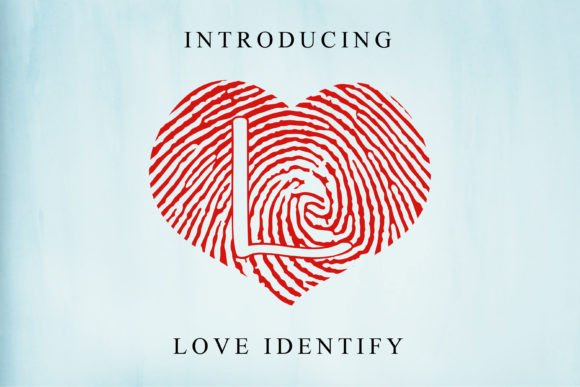
Love Identify Font: The Perfect Monogram Valentine’s Font
Are you looking for a unique and beautiful font to make your Valentine’s Day designs stand out? Look no further than Love Identify Font! This stunning monogram Valentine’s font is perfect for creating romantic and eye-catching designs for Valentine’s Cards, t-shirts, invitations, book covers, posters, and more.
What is Love Identify Font?
Love Identify Font is a carefully crafted monogram font that exudes love and elegance. Its unique and beautiful design makes it perfect for creating Valentine’s Day designs that will capture the hearts of your audience. The font features intricate details and a romantic feel that will add a touch of sophistication to any design.
Uses of Love Identify Font
Love Identify Font is a versatile font that can be used for a variety of design projects, including:
- Valentine’s Cards: Create romantic and personalized Valentine’s cards with Love Identify Font.
- T-shirts: Design eye-catching t-shirts with Love Identify Font that will make a statement.
- Invitations: Use Love Identify Font to create beautiful and elegant invitations for weddings, parties, and other events.
- Book Covers: Add a touch of romance to your book covers with Love Identify Font.
- Posters: Create stunning posters with Love Identify Font that will grab attention.
Features of Love Identify Font
Love Identify Font comes with a range of features that make it a must-have for designers, including:
- Unique and Beautiful Design: Love Identify Font features a unique and beautiful design that will make your designs stand out.
- Monogram Style: The font features a monogram style that adds a touch of elegance to any design.
- Romantic Feel: Love Identify Font has a romantic feel that makes it perfect for Valentine’s Day designs.
- Elegant and Sophisticated: The font has an elegant and sophisticated look that will add a touch of class to any design.
Benefits of Using Love Identify Font
Using Love Identify Font for your design projects comes with a range of benefits, including:
- Increased Engagement: Love Identify Font is designed to capture attention and increase engagement.
- Professional Look: The font gives your designs a professional look that will make you stand out.
- Easy to Read: Love Identify Font is easy to read, making it perfect for designs that require a clear and concise message.
- Customizable: The font is customizable, allowing you to adjust the size, color, and style to suit your design needs.
Tips for Using Love Identify Font
Here are some tips for using Love Identify Font effectively:
- Use it for Headings: Love Identify Font is perfect for headings and titles.
- Pair it with Other Fonts: Pair Love Identify Font with other fonts to create a unique and interesting design.
- Adjust the Size: Adjust the size of the font to create visual interest and hierarchy.
- Experiment with Colors: Experiment with different colors to find the perfect match for your design.
Love Identify Font is a unique and beautiful monogram Valentine’s font that is perfect for creating romantic and eye-catching designs. With its elegant and sophisticated look, it’s ideal for Valentine’s Cards, t-shirts, invitations, book covers, posters, and more. Whether you’re a designer or a DIY enthusiast, Love Identify Font is a must-have for your design projects.